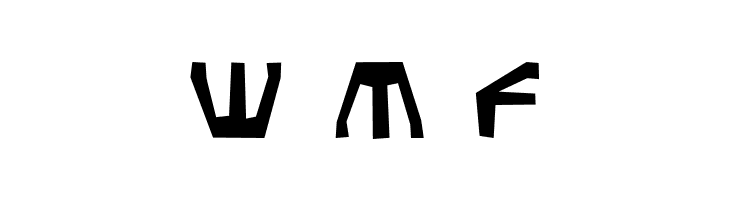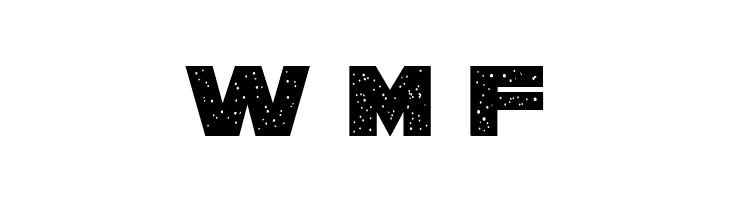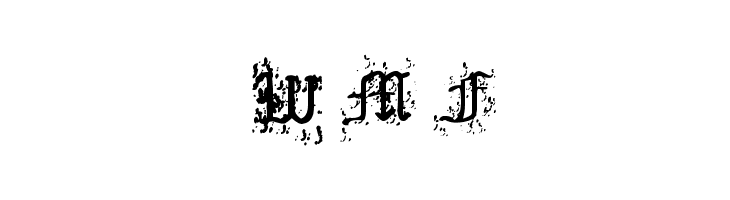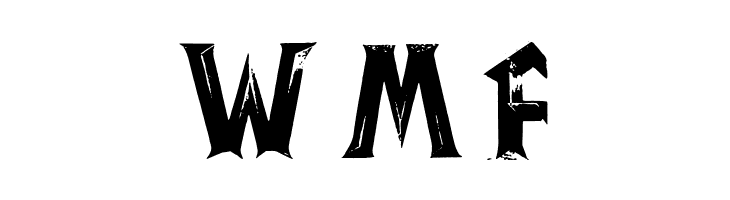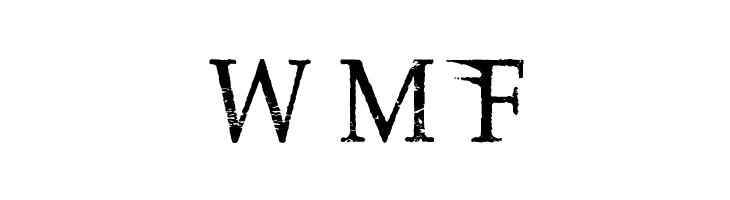
A classic serif font with a hand-drawn, textured style, reminiscent of Roman inscriptions.
A bold, geometric font with a rugged, textured appearance and sharp angles.
A bold, geometric font with a rough, textured finish and sharp, angular characters.
A bold, starry-textured font with a futuristic, space-themed design.
An ornate Old English style font with heart embellishments and a distressed texture.
A distressed serif font with a vintage, rustic appearance.
A rugged, stone-carved font with a textured, ancient appearance.
A classic serif font with a textured, vintage appearance.